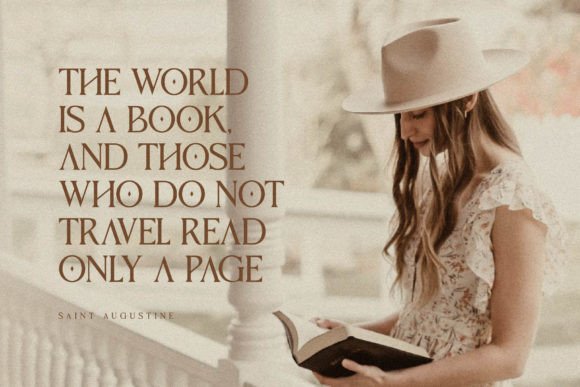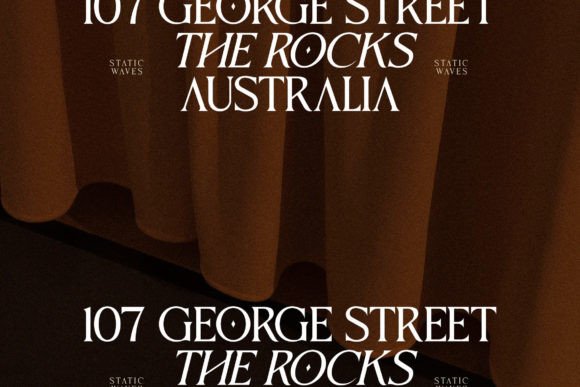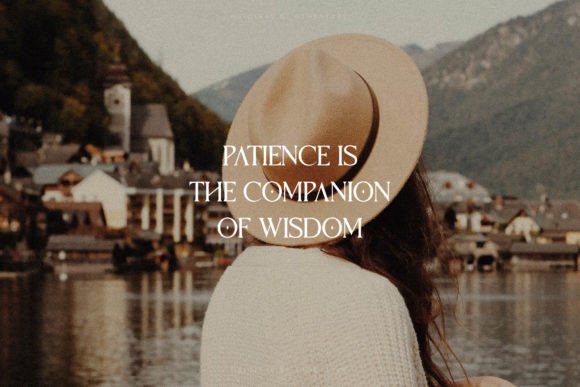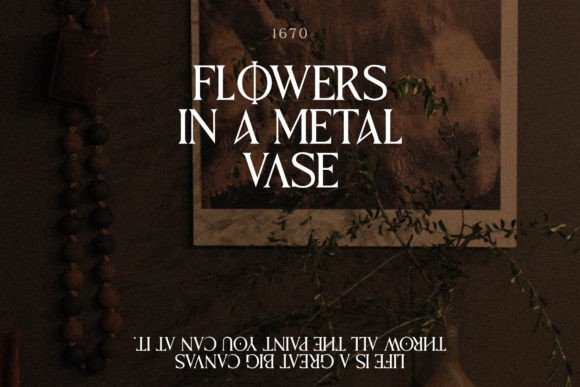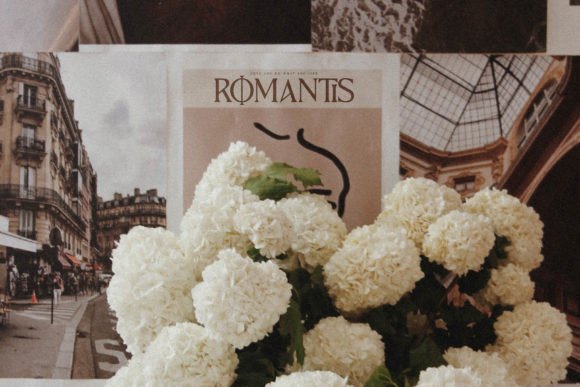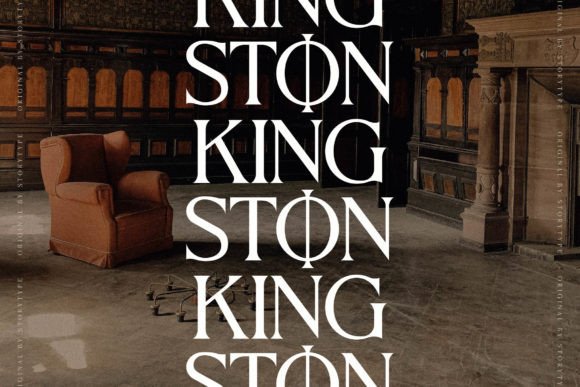
Introduction to Kingston Roman Font
Kingston Roman is a modern and classic serif typeface with a unique style and fancy look.
This typeface is perfect for an elegant & luxury logo, book or movie title design, fashion brand, magazine, clothes, lettering, quotes, and so much more .